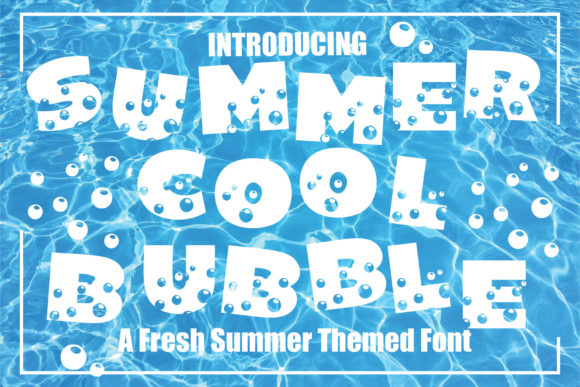
Escape the ordinary and dive into the world of Summer Cool Bubble Font, a typographic delight that exudes joy and playfulness! This display font, crafted by the ingenious KtwoP, is a visual symphony of bold, thick letters that burst with personality and charm. It's not just a font; it's an expression of carefree summer days, reminiscent of ice cream dripping down a cone on a hot summer day.
With Summer Cool Bubble Font, you'll embark on a creative journey where imagination knows no bounds. Its captivating curves and playful shapes ignite a sense of nostalgia, transporting you back to childhood summers filled with laughter and adventure. Unleash your creativity and let your designs dance with delight as you weave words into works of art.
This font is not merely a collection of letters; it's an invitation to let your inner child roam free, to explore the vibrant realm of self-expression and boundless imagination. Whether you're crafting logos, branding materials, or designing social media posts and websites, Summer Cool Bubble Font will infuse your creations with an infectious energy that captivates and inspires.
Dive into the world of Summer Cool Bubble Font and experience the joy of creating designs that radiate happiness and nostalgia. Let your imagination soar as you transform ordinary words into extraordinary expressions, leaving an indelible mark on the hearts and minds of your audience. Embrace the spirit of summer and let your creativity bloom with Summer Cool Bubble Font!